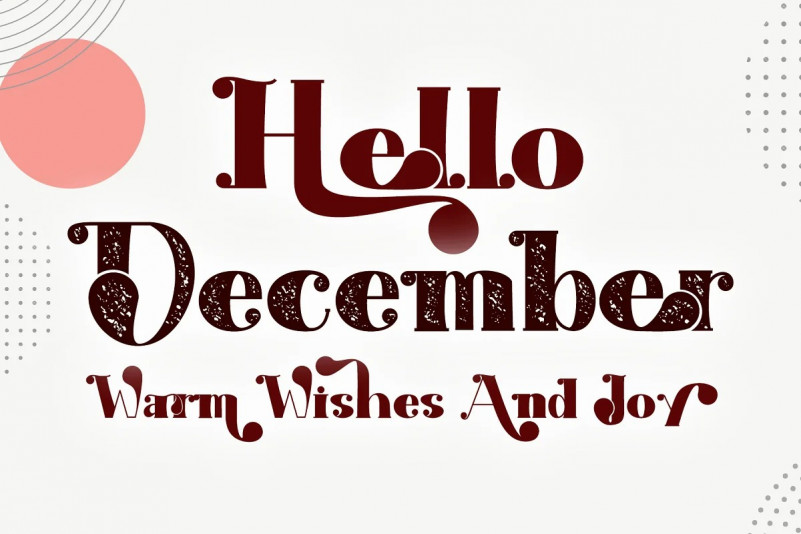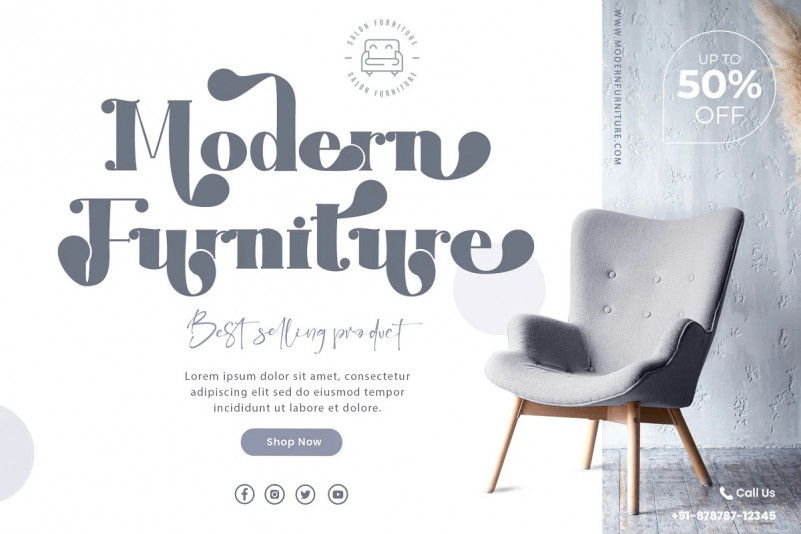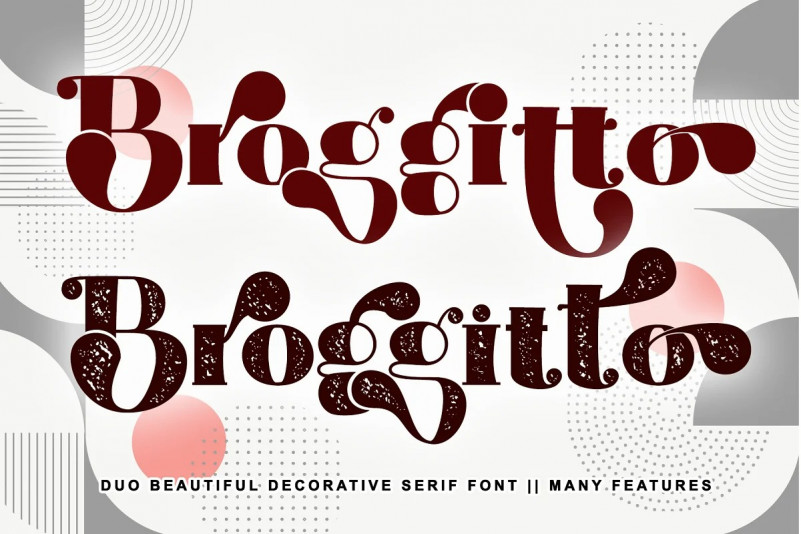
Broggitto Font
Broggitto Serif Font is a beautiful incredibly versatile serif font duo. It perfectly combines a beautiful serif with an elegant brush sans serif. This font was created with care and given a lot of features to make it look very attractive. These styles are ready to be used together and give your designs a modern and unique look! Broggitto font suitable for all design projects. This font is PUA encoded which means you can access all of the glyphs.